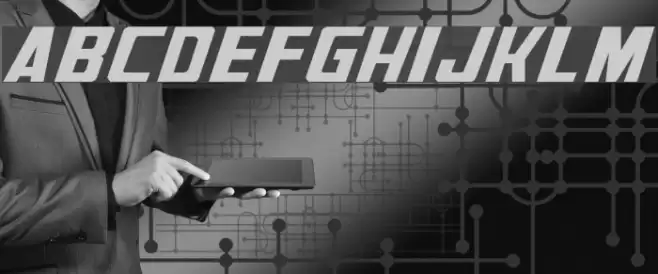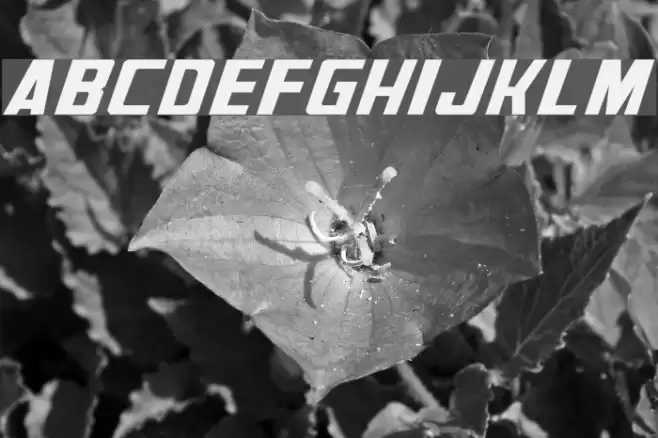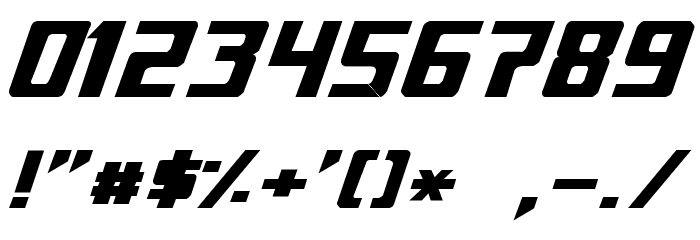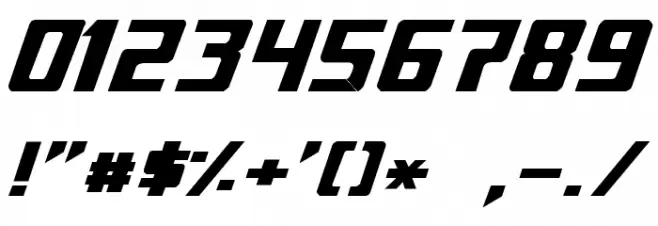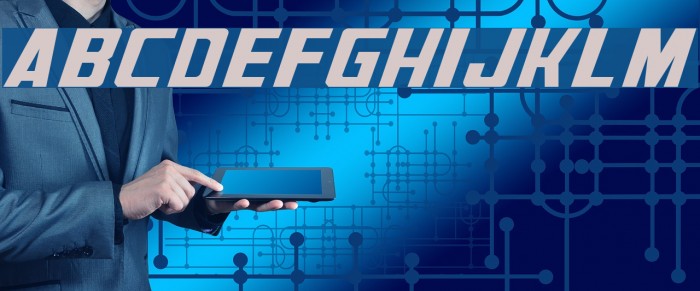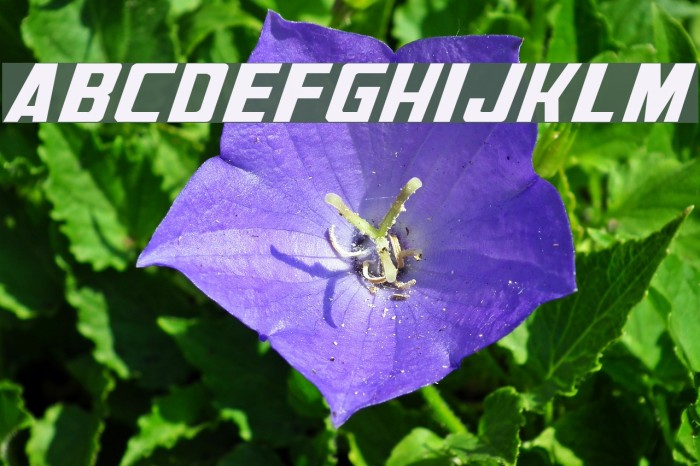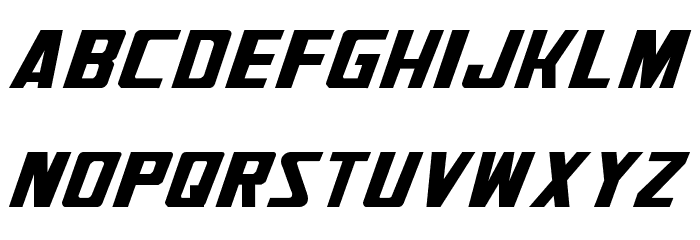
Generation Two Normal Font
Generation Two Normal Description
This font features a bold and dynamic style with a strong, angular design. The characters are slightly slanted, giving a sense of motion and energy. The strokes are thick and consistent, providing a robust and impactful appearance. The uppercase and lowercase letters maintain a uniform width, contributing to a cohesive look. The numerals and special characters follow the same design principles, ensuring a harmonious overall presentation. This font is suitable for projects that require a modern and assertive aesthetic.
A bold, angular font with a dynamic, slanted style from Military fonts.